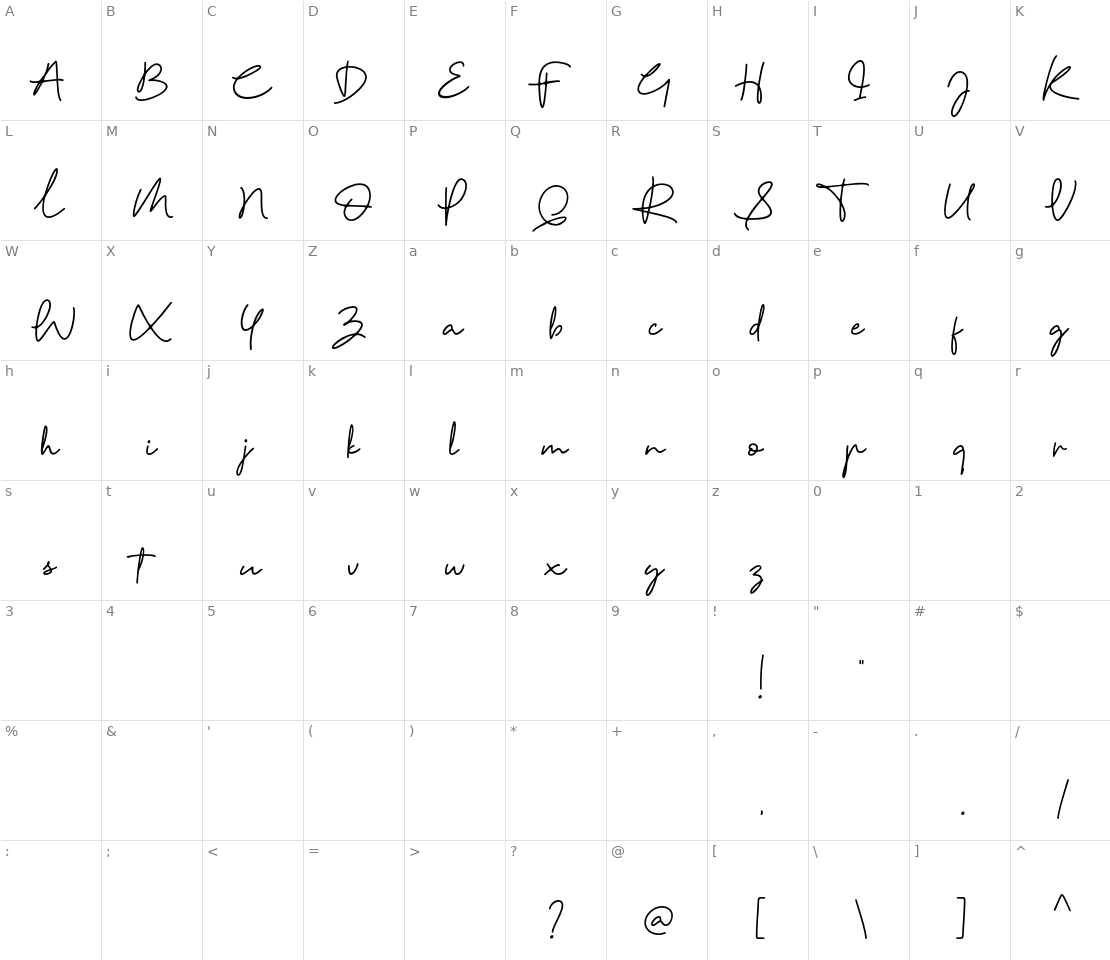
Reinata
Reinata is a lightweight signature-style script from Nug's Project, with thin, flowing strokes that feel personal and unhurried. The letterforms carry an understated elegance that keeps things modern rather than overly formal, landing naturally in wedding stationery, feminine branding, and editorial layouts where you want something that reads like real handwriting with a polished edge.